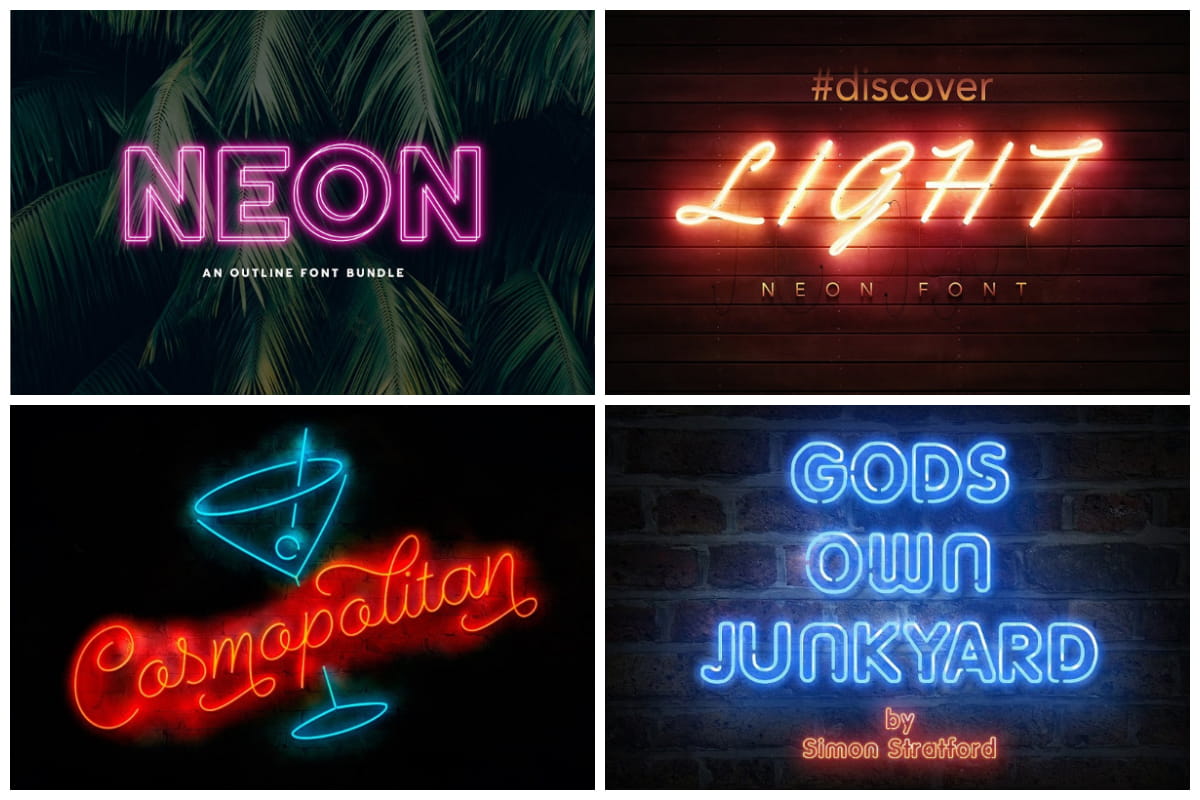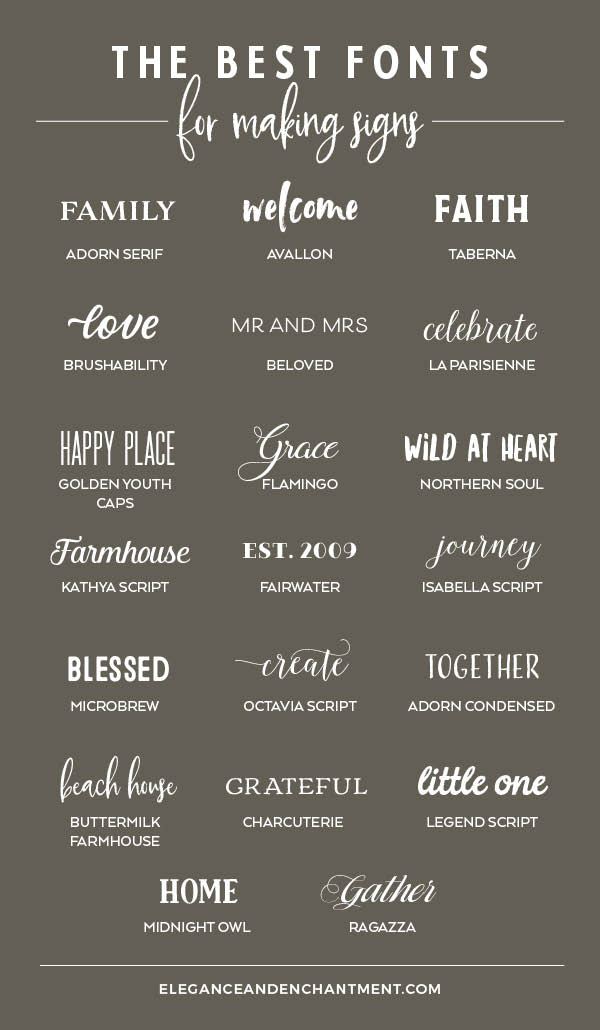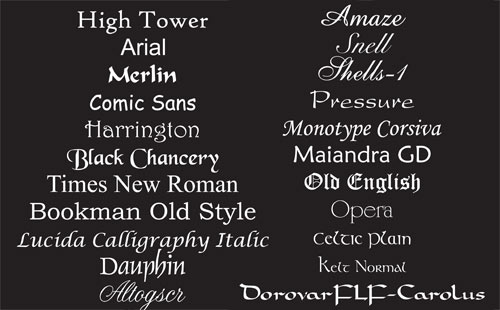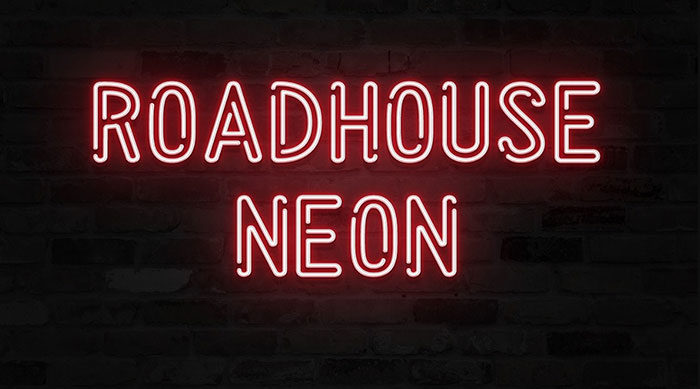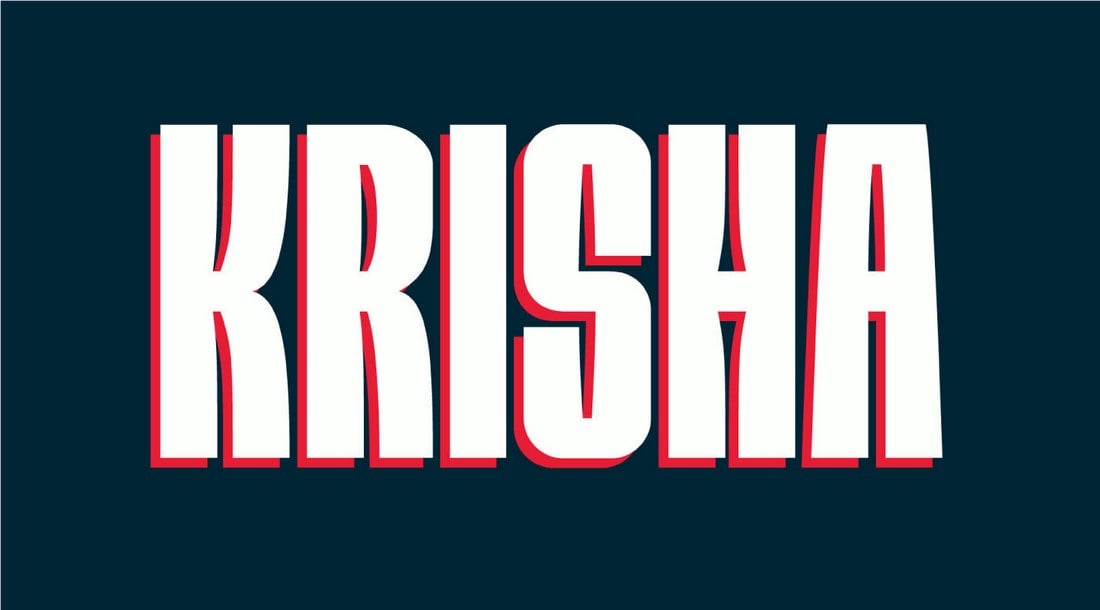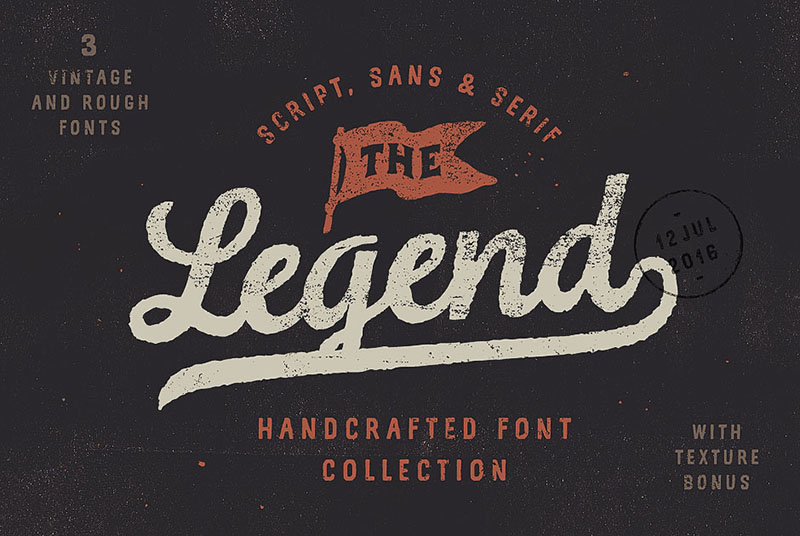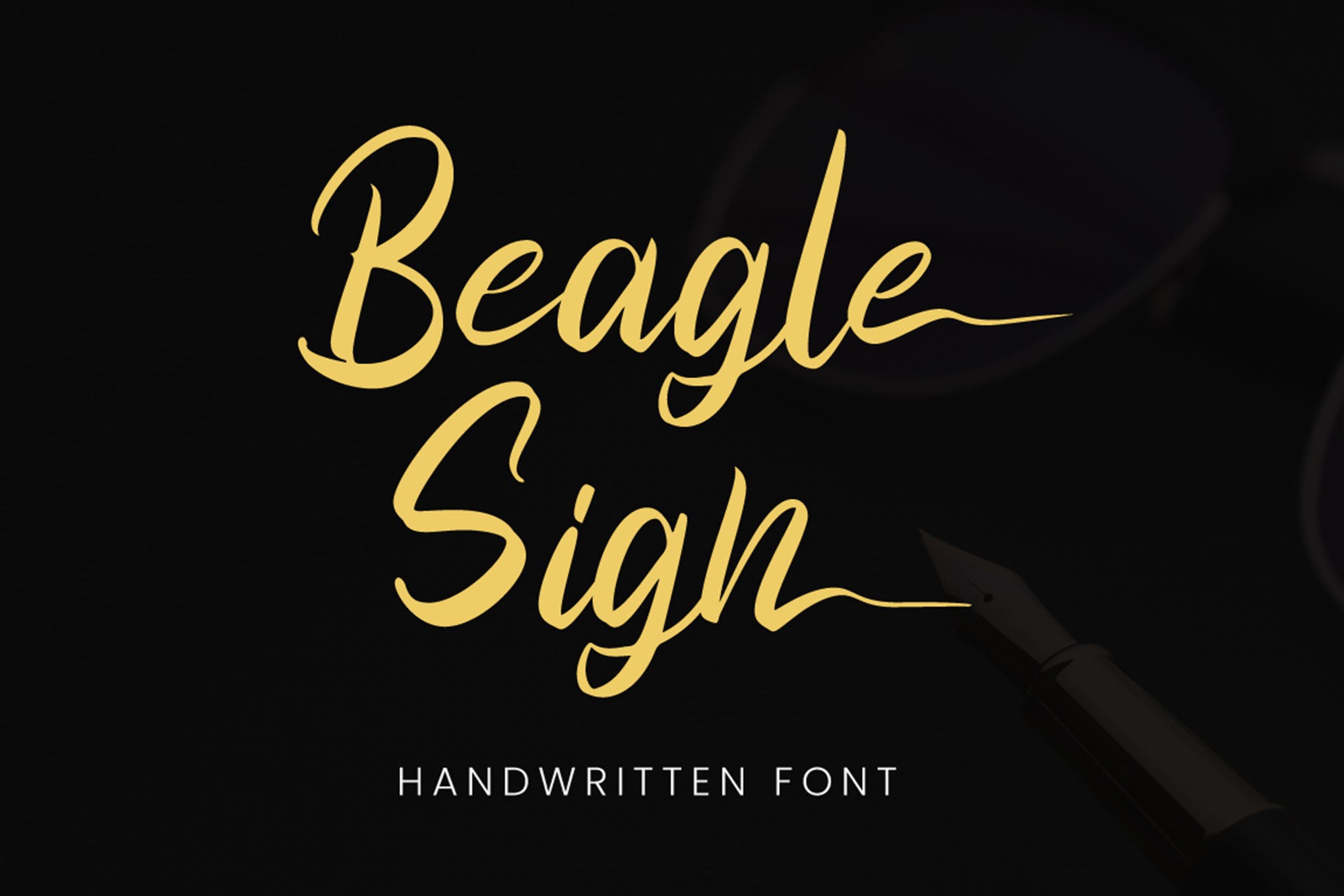
These may offer a clean.
Letter fonts for signs. Law firms doctors and other more professional businesses may want to use serif fonts like Copperplate or Palatino. Light woods do better with dark lettering. Manufaktur is a bold typeface that comes in 5 different font weights 3 font styles and 3 widths.
Helvetica Futura Bebas Avenir Proxima Nova. As a general rule of thumb dont use more than two different letter styles in a single sign design. The font color you choose makes a big difference.
The Best Fonts for Making Signs Adorn Serif Family Avallon Welcome Taberna Faith Brushability Love Beloved Mr and Mrs La Parisienne Celebrate Golden Youth Happy Place Flamingo Grace Northern Soul Wild at Heart Farmhouse Kathya Fairwater Est 2009. This generator converts your text into fancy letter fonts that you can copy and paste into your Instagram bio or to anywhere else on the internet. Hand lettering is an art form that takes practice and discipline and can mimic calligraphy or other styles.
This eye-catching font from Denise Bayers is perfect for truck lettering and signs. When you start modifying the shapes of the letters you are now illustrating hand-drawn lettering. Regular Shadow Inset Inset Shadow and Spurs.
Otherwise you risk creating a mishmash of fonts and reducing the effectiveness of your message. Dark woods need need lighter lettering. The font is perfect for designing signage related to corporate businesses and industries as well as modern brands.